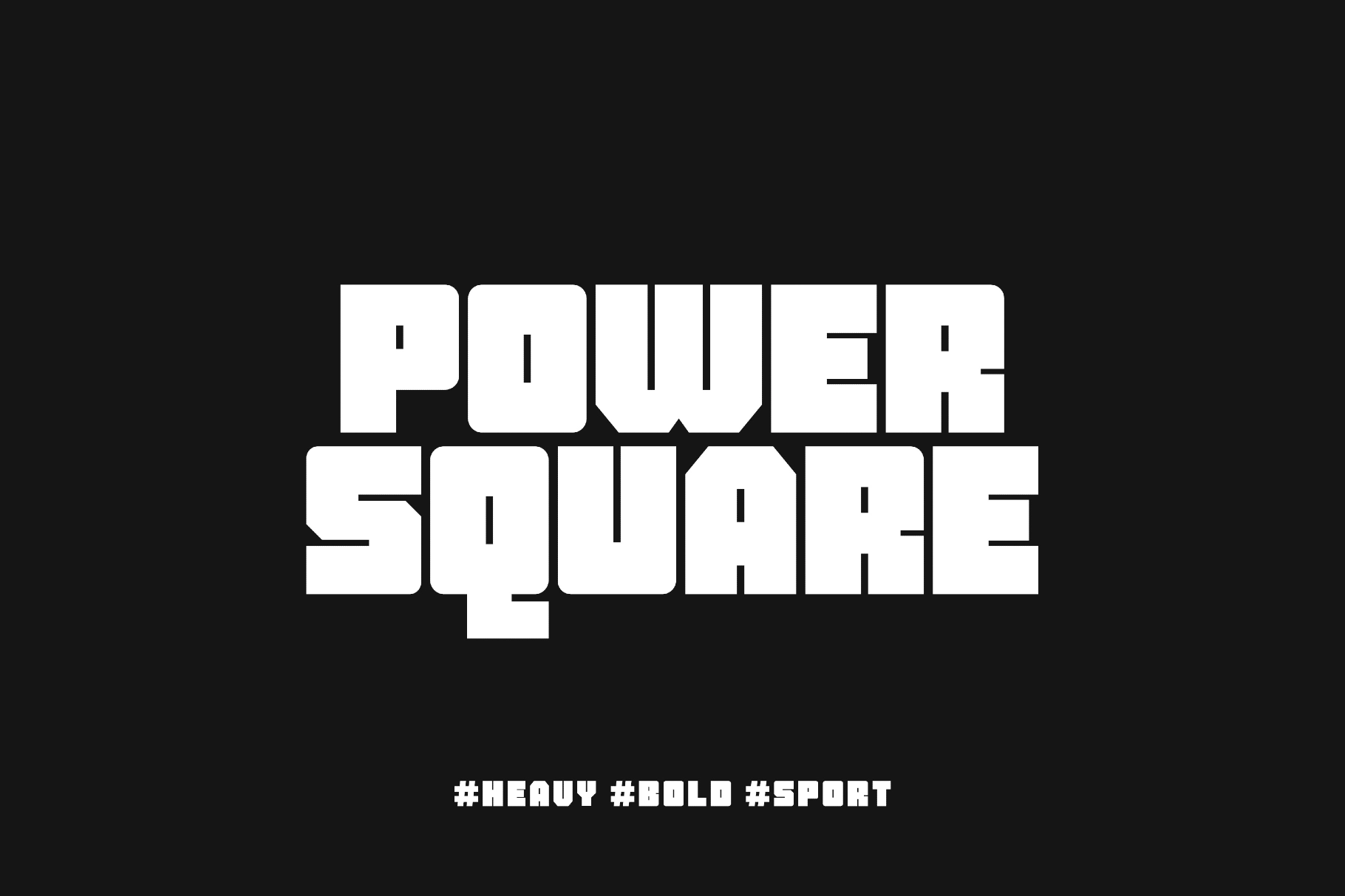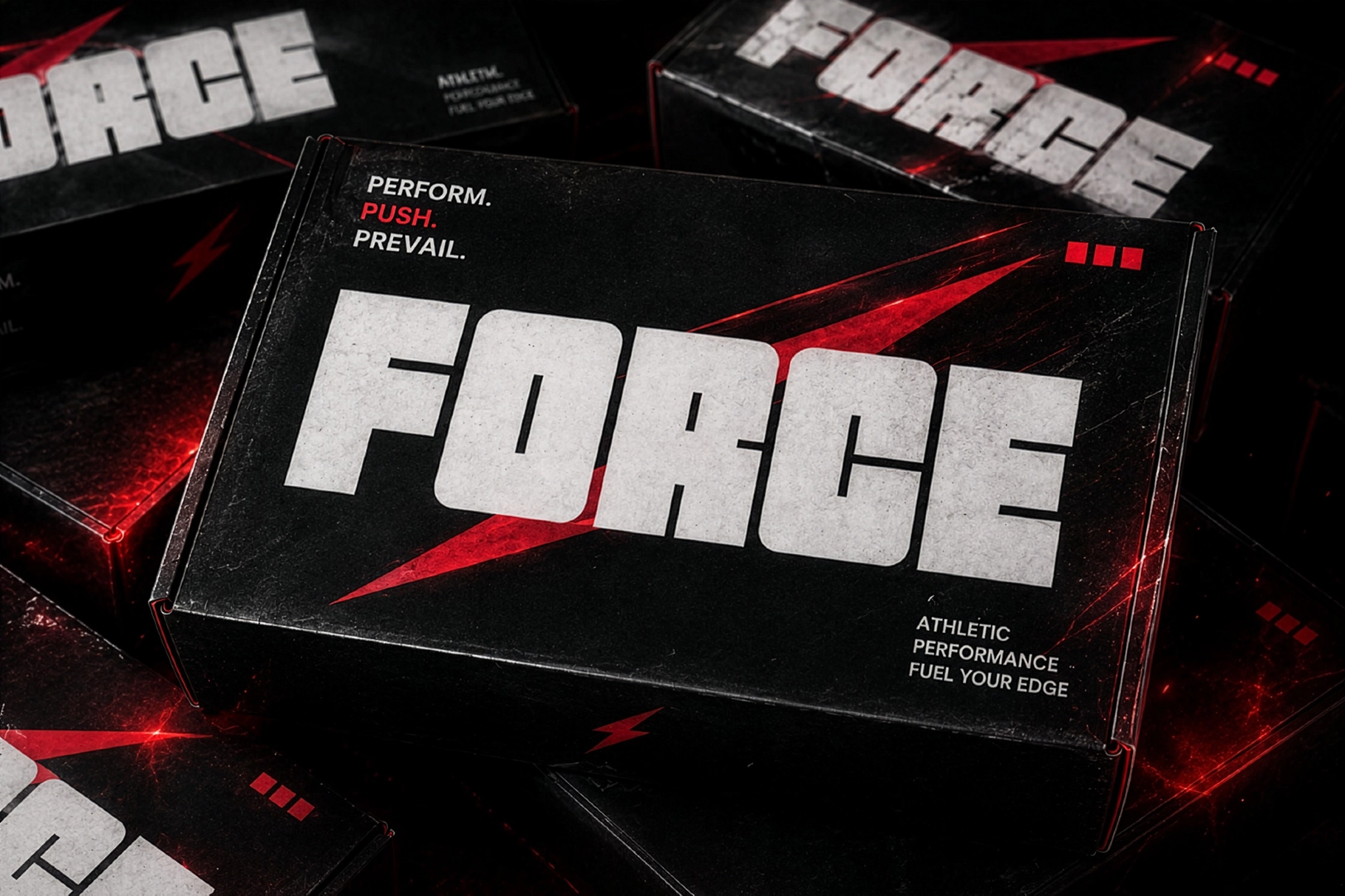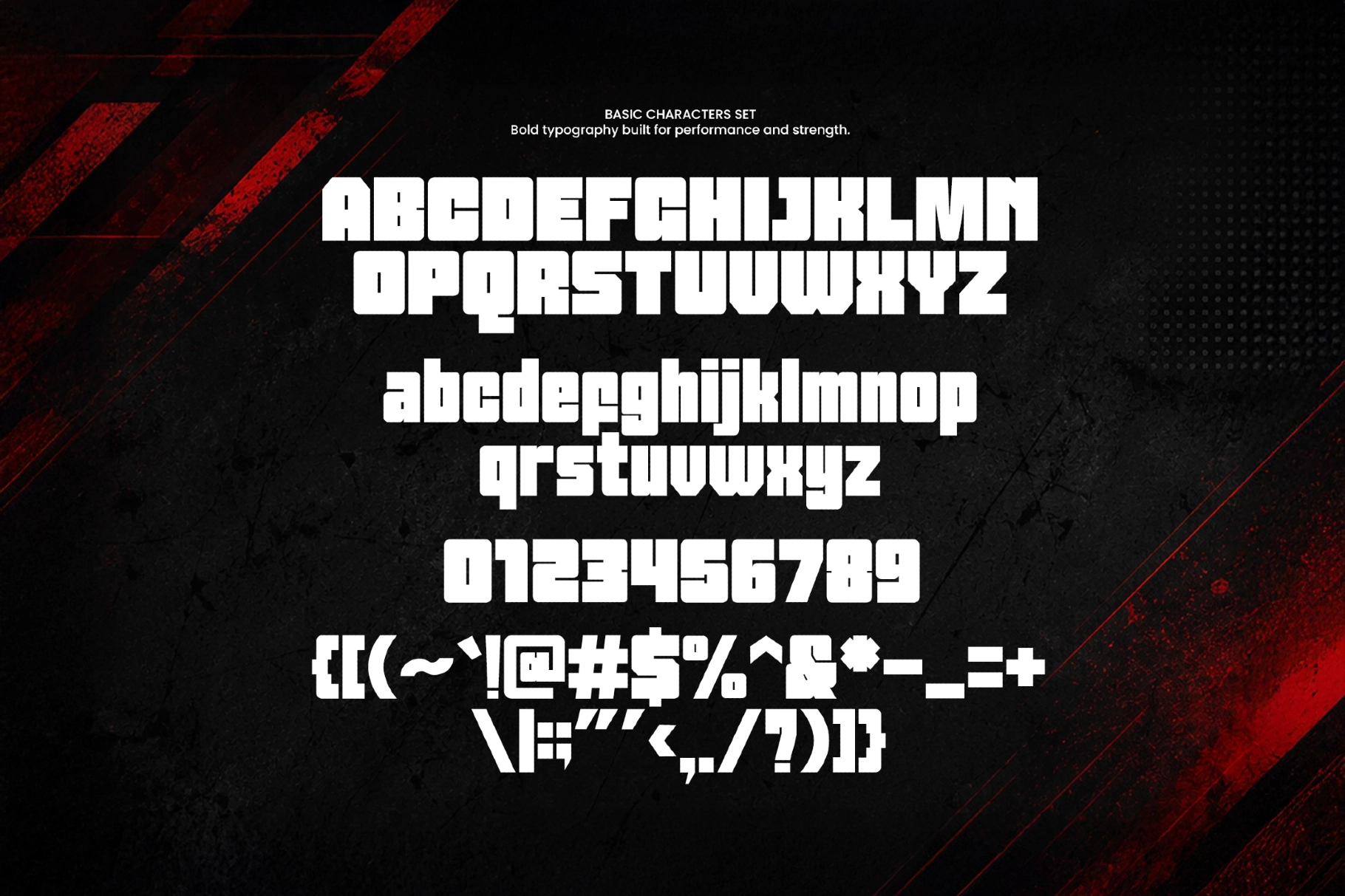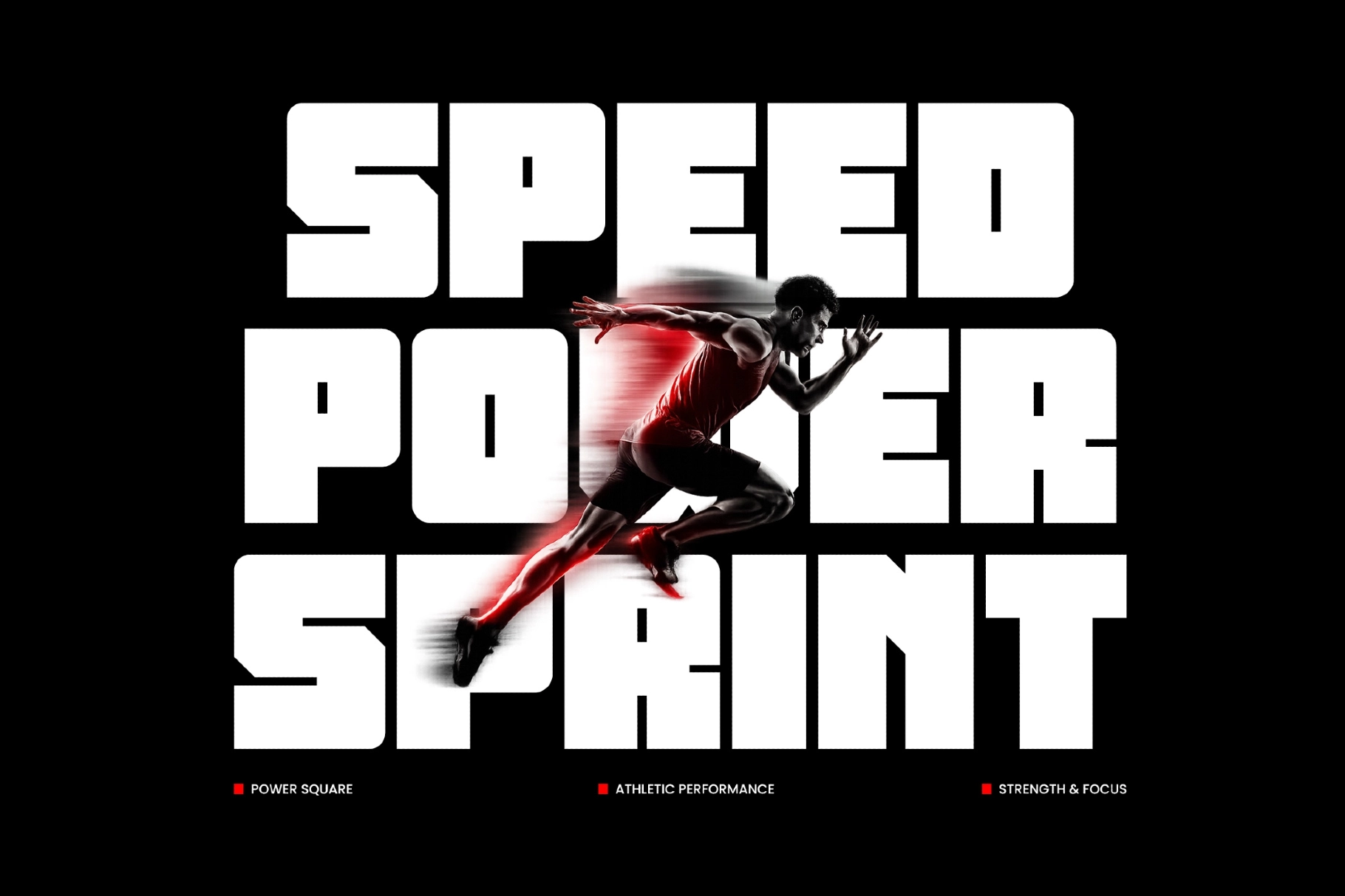
Power Square - Heavy Bold Sports Font
Power Square runs on thick, squared-off letterforms built for athletic branding and high-impact headlines, landing as a bold sports display font with wide blocky proportions and sharp, flat-cut terminals. The heavy strokes and tight counters give every word a technical, engineered feel, closer to a stamped metal plate than a drawn letterform.
The italic companion leans the same blocky structure into a forward push, useful for anything that needs a sense of motion. Use it for sports branding, esports logos, gym and fitness campaigns, racing graphics, and streetwear merch.